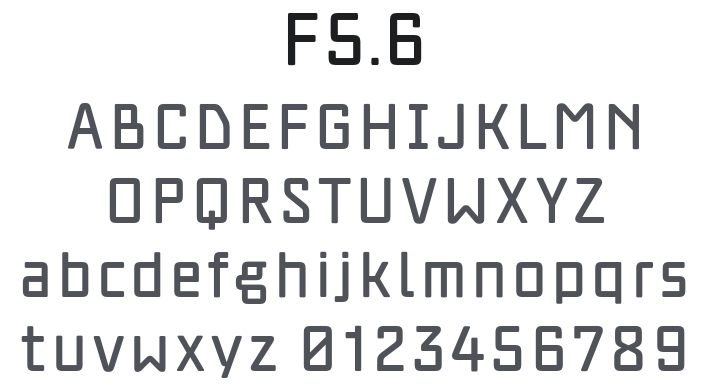
F5.6 Font
by dot colon
About F5.6
F5.6 is a sans-serif font created by combining two elements: the distinctive atmosphere of typefaces born from mechanical constraints—such as those found on Leica lenses or used for standard machine engraving—and the linear typographic styles seen in sci-fi movies and anime.
We have currently released F1.8 and FA-1, which separate these two elements to clarify the concept behind each.